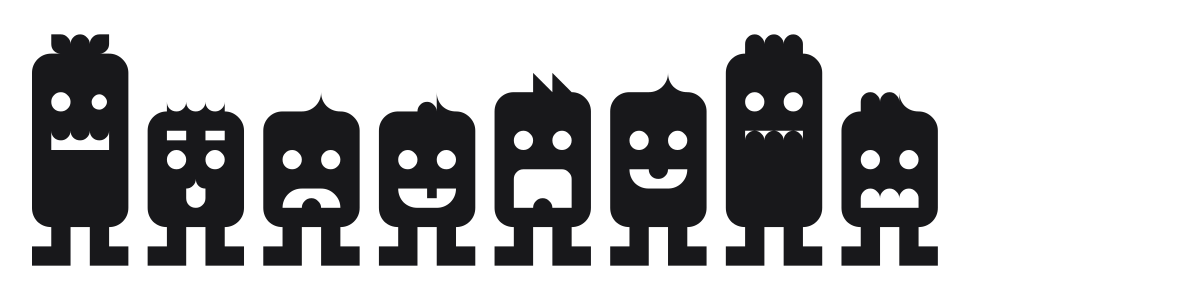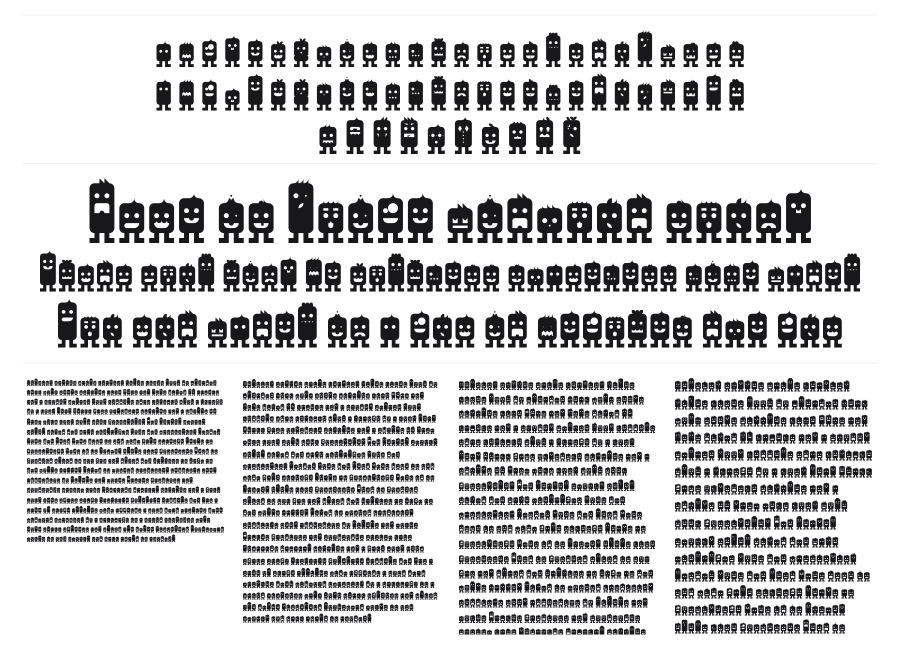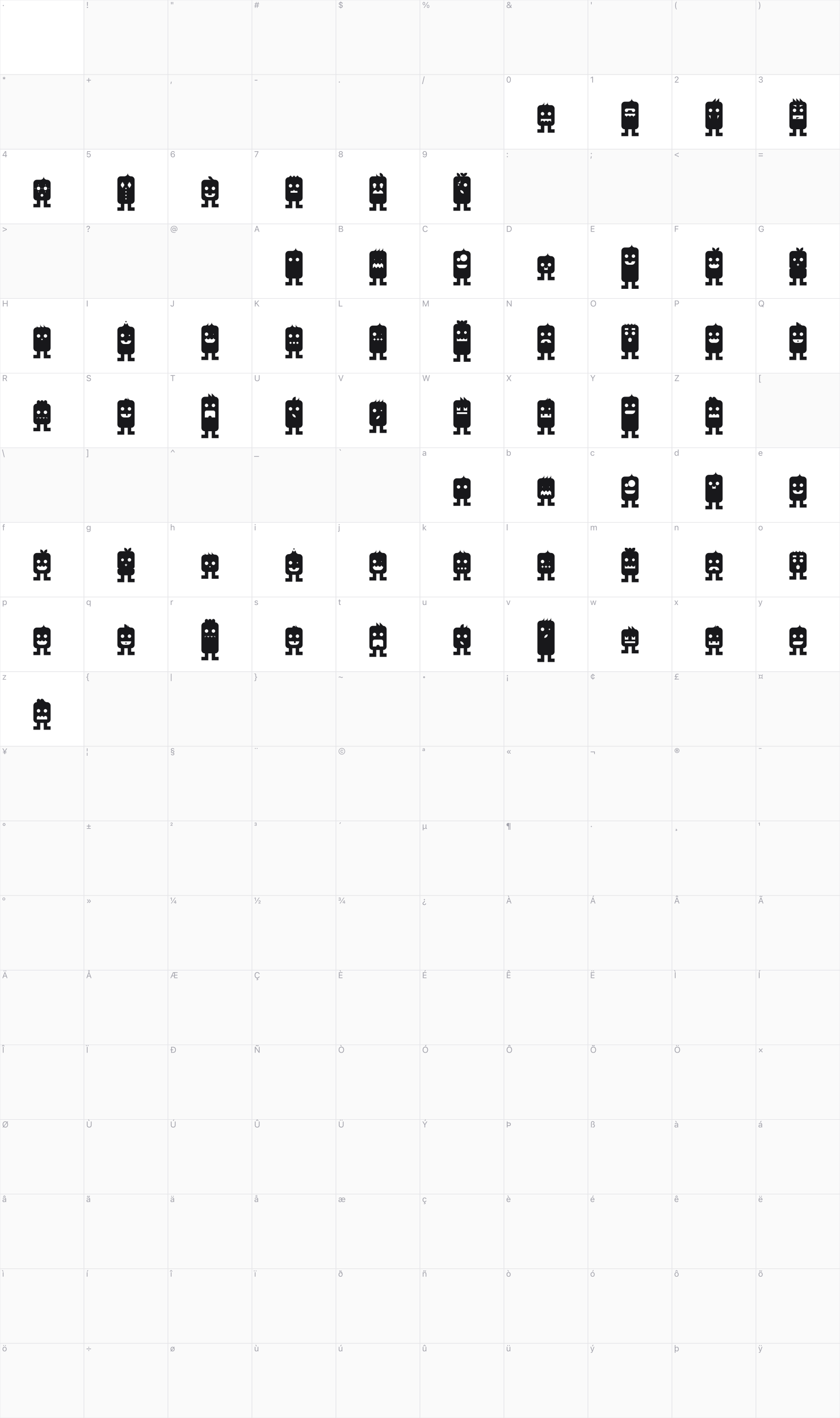
Monsterz
Monsterz is a dingbat font made up of chunky pixel-influenced monster silhouettes, each with its own distinct expression and personality. The characters are bold, graphic, and immediately readable at large sizes. A natural pick for gaming projects, kids' media, merchandise, and anywhere that needs a shot of creature-feature fun.